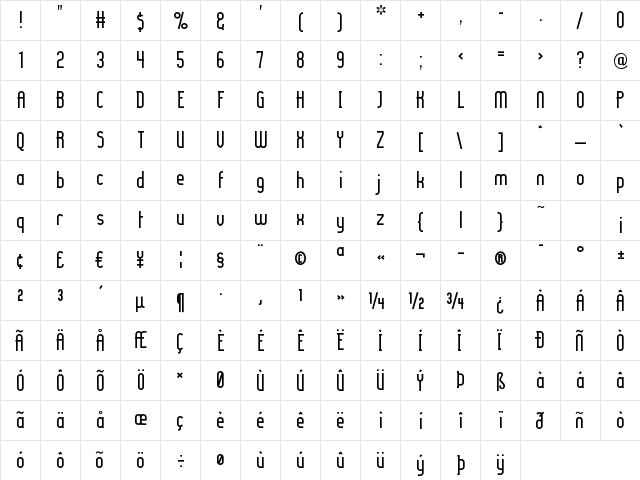
Lady Ice Revisited Regular
Design Context for Lady Ice Revisited Typeface
Lady Ice Revisited is a composed and adaptable typeface that performs quietly and consistently across a wide range of design contexts.
Pro Tip: Use Lady Ice Revisited in both headline and body roles to test its range before committing to a single application.